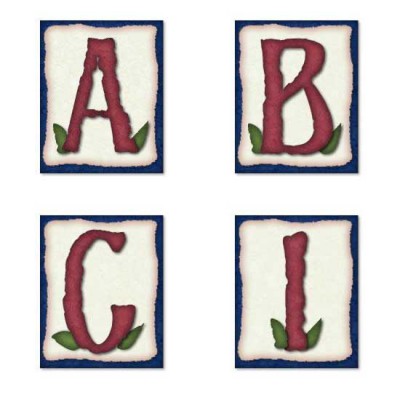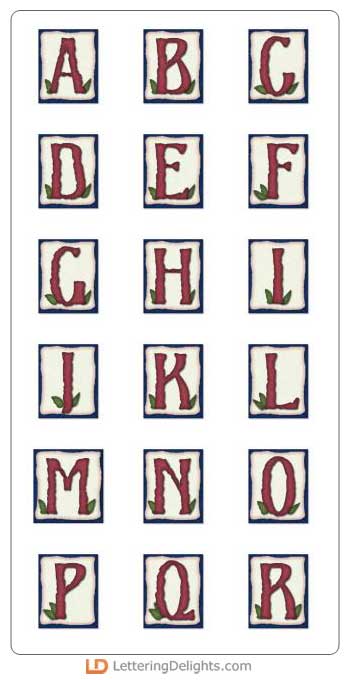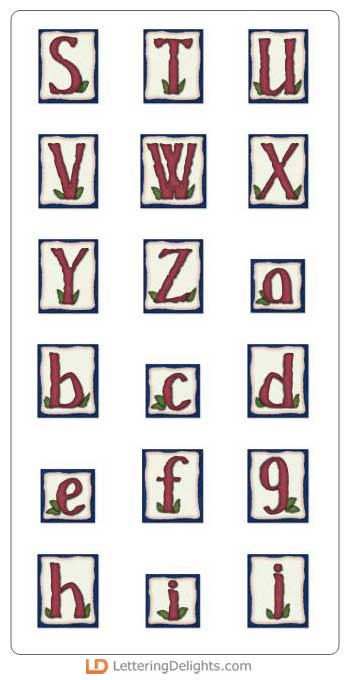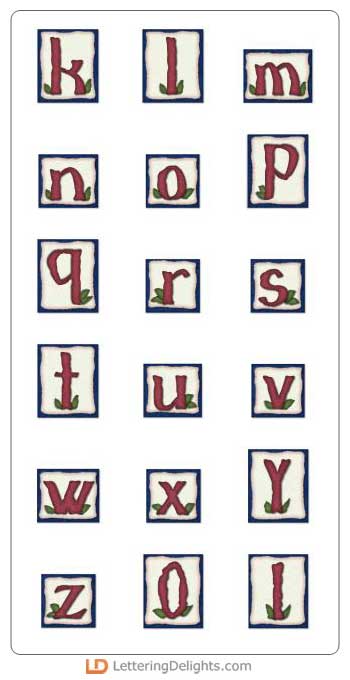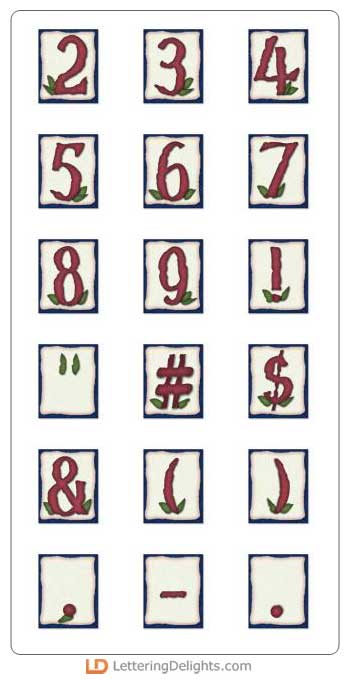
The letters of this alphabet appear as if they just sprouted from the ground. At the base are a few small budding leaves. They are surrounded by a box giving it the planter feeling. This is a fun alphabet.